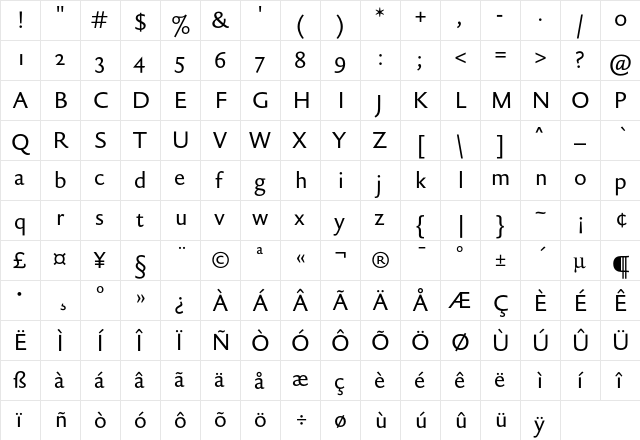
DTLHaarlemmerSansSD Regular
Design Context for DTLHaarlemmerSansSD Typeface
DTLHaarlemmerSansSD takes a measured approach to typography — its balanced proportions and neutral character make it a reliable workhorse for both digital and print work.